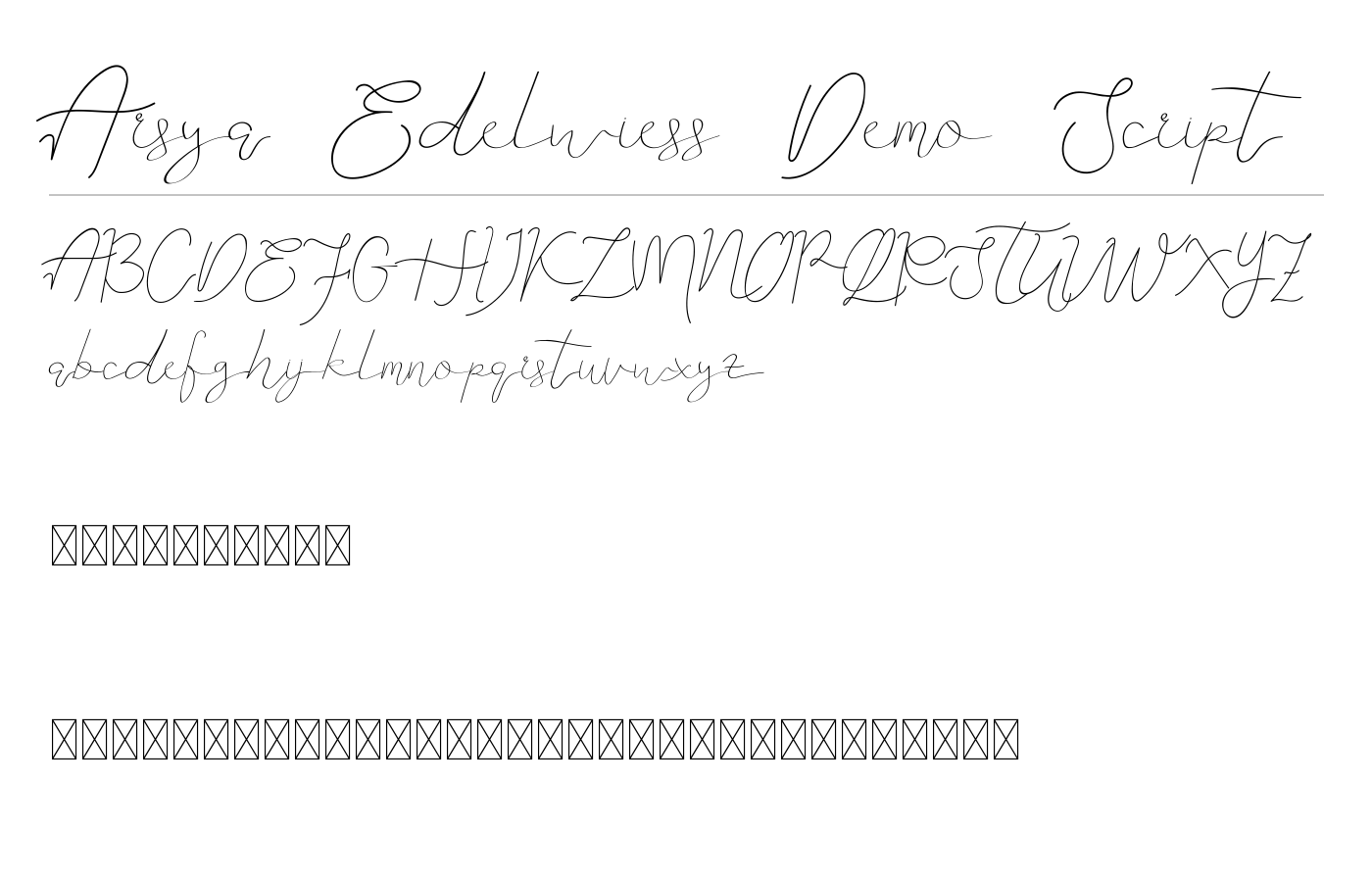
Arsya Edelwiess Demo is a delicate, elegant script font characterized by its very thin, flowing strokes and graceful, handwritten style. It features high, airy letterforms with a refined, casual charm that works beautifully for feminine branding, invitations, and creative designs needing a personal, sophisticated touch. This font is ideal for adding elegance and subtle personality to logos, headlines, and decorative text.
Arsya Edelwiess Demo Font
About Arsya Edelwiess Demo Font